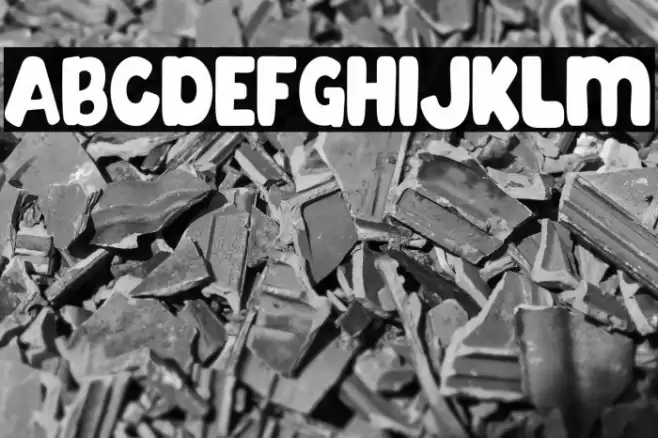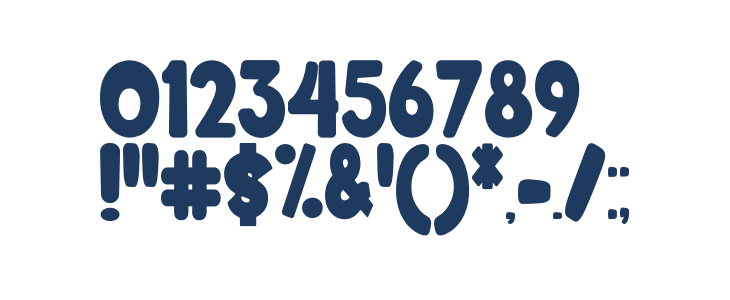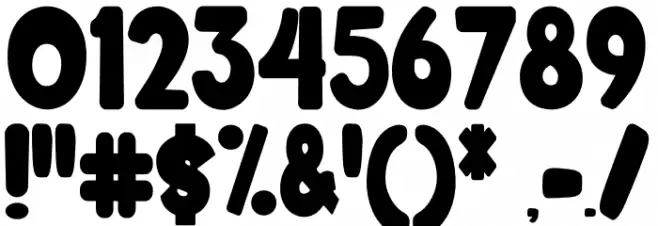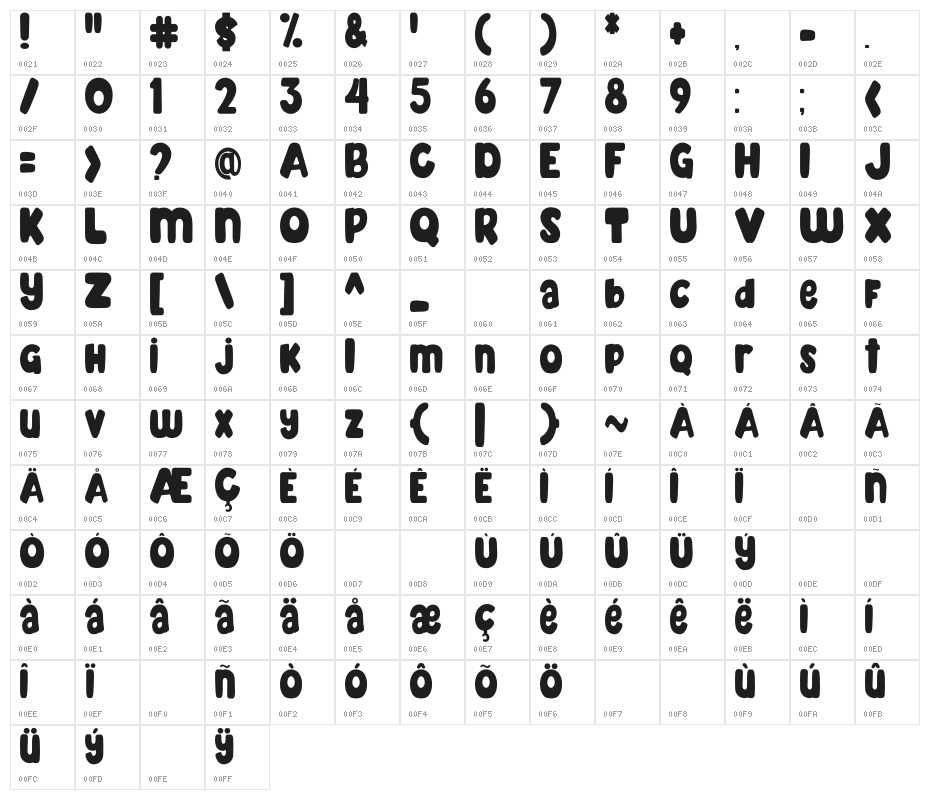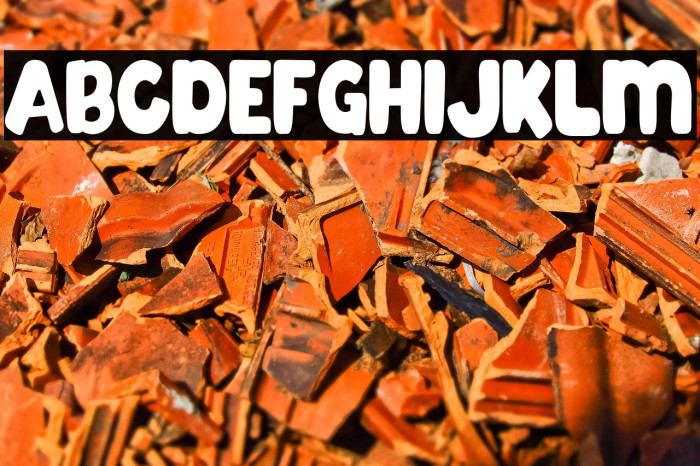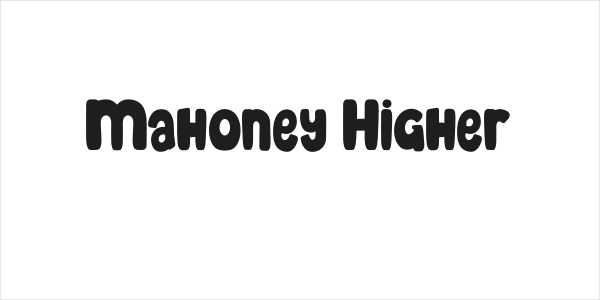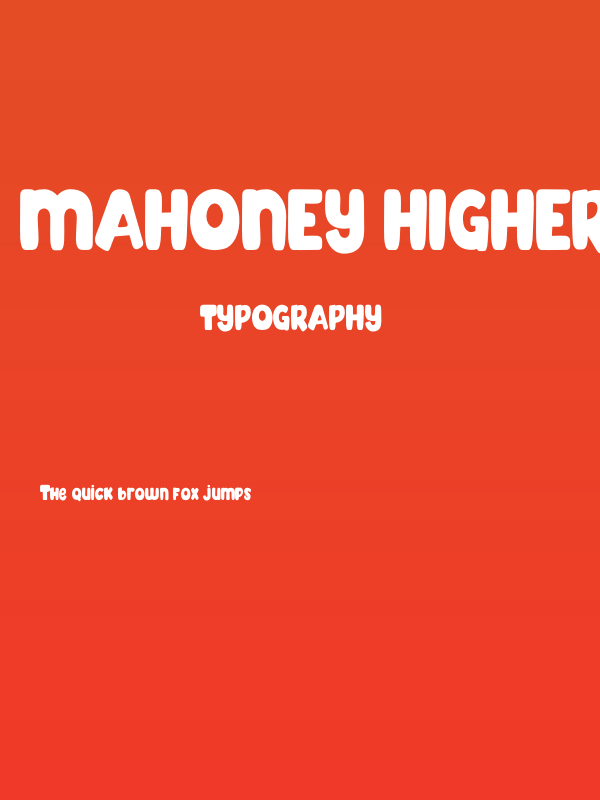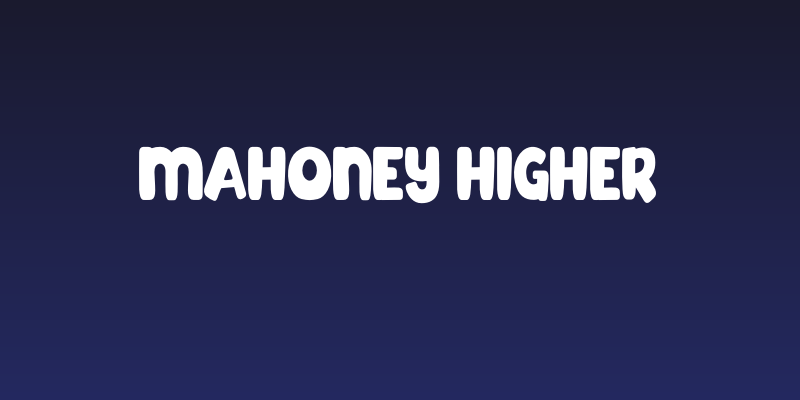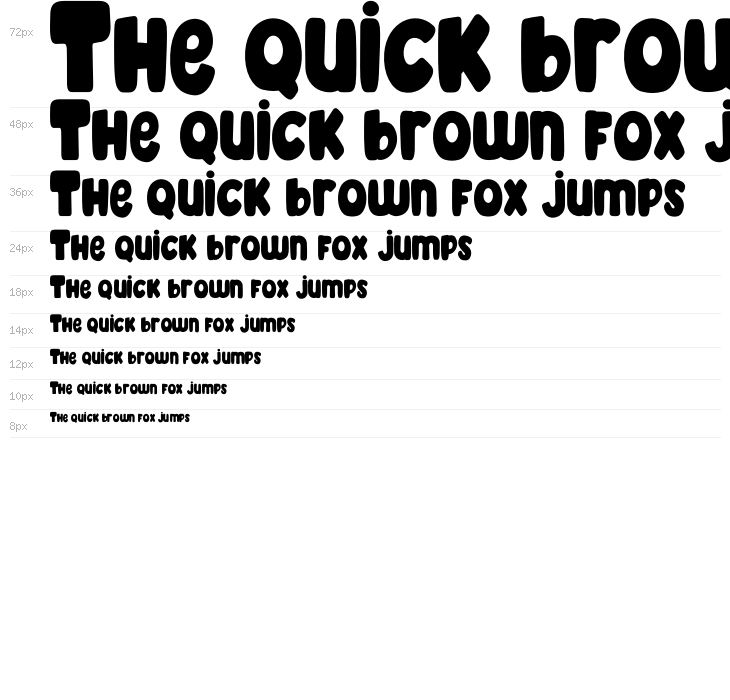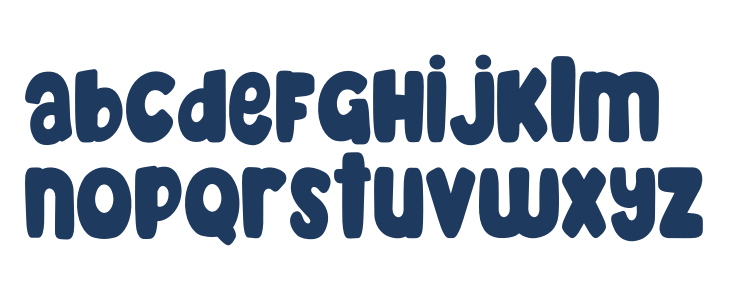
Mahoney Higher Font
Mahoney Higher Description
This font features a bold and playful design with rounded edges and a thick, uniform stroke. The characters are highly stylized, giving off a fun and whimsical vibe. The uppercase and lowercase letters maintain a consistent weight, creating a cohesive look across the alphabet. Numbers and special characters are equally bold, ensuring readability and visual impact. The overall appearance is reminiscent of retro or vintage styles, making it suitable for projects that require a touch of nostalgia or a playful tone.
A bold, playful font with rounded edges and a retro vibe from Cartoon fonts.
- Proposed Projects: Ideal for children's books, playful branding, retro-themed posters, and eye-catching headlines.
- Overall Style: Vintage